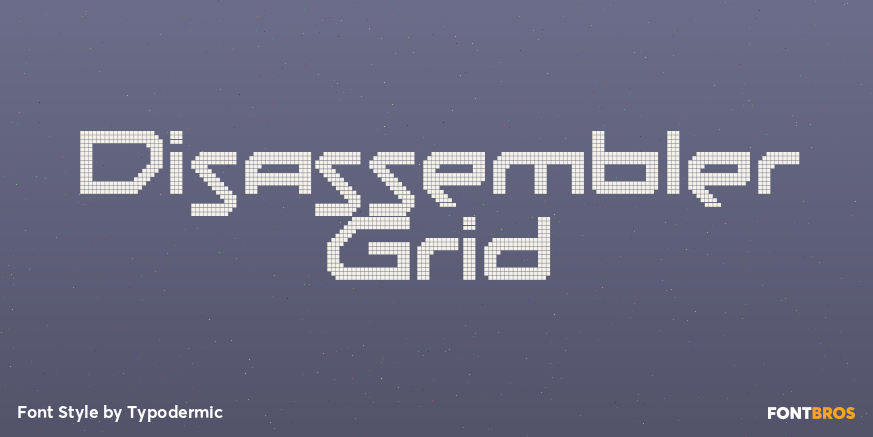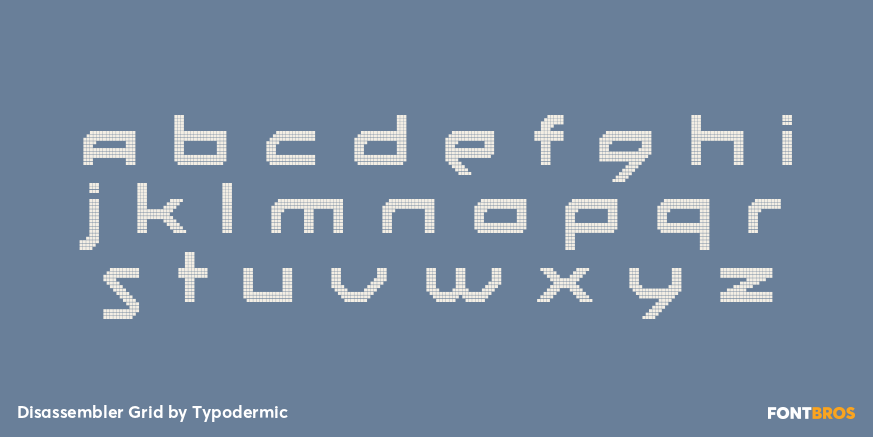
Disassembler Grid
Buy NowDisassembler Grid opens the family’s blocky alphabet into a fine, regular matrix. The letterforms remain legible, but their internal structure becomes the subject, suggesting coordinate systems, display cells, targeting arrays, and information divided into measurable units.
Use Grid for autonomous-systems branding, technical exhibits, secure-communications graphics, mapping interfaces, research conferences, and large data-driven installations. Its comparatively orderly texture makes it useful for labels and secondary titles within a broader Disassembler system, while denser variants can carry the principal headline.